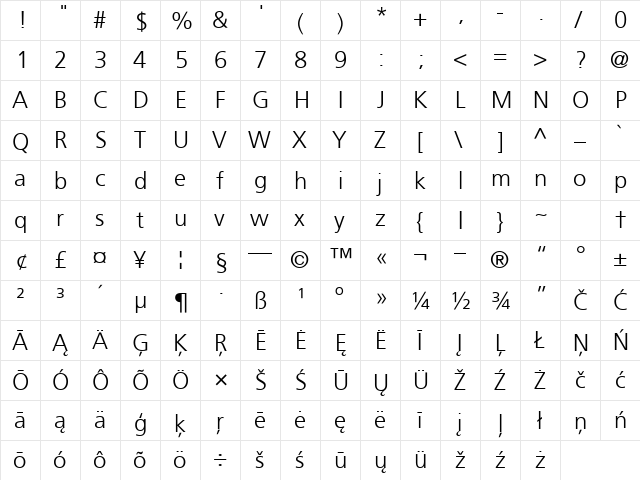
BaltFrutiger Light
Design Context for BaltFrutiger Typeface
BaltFrutiger offers clean, dependable letterforms without strong stylistic allegiance, making it a practical choice for designers who need flexibility. Its slender proportions lend an understated elegance to any composition.
Pro Tip: Use BaltFrutiger in both headline and body roles to test its range before committing to a single application.